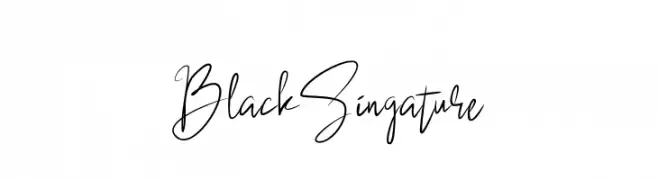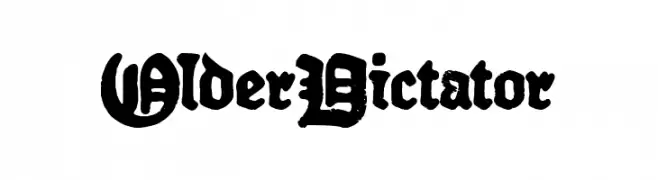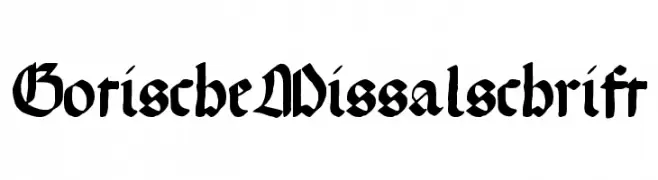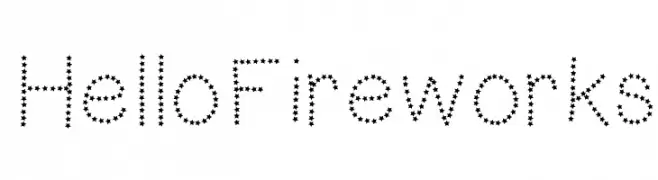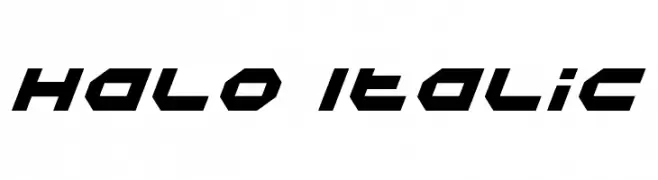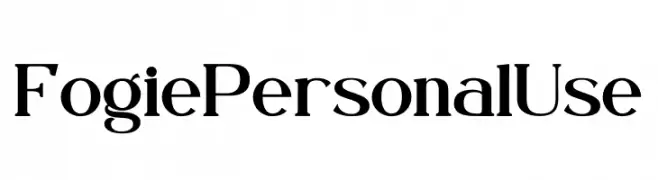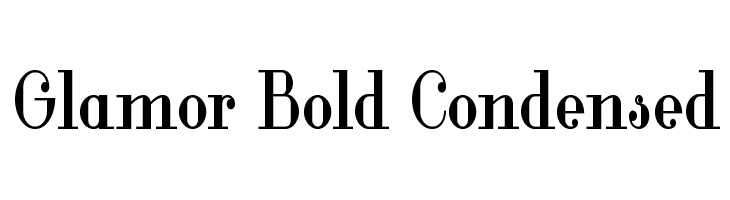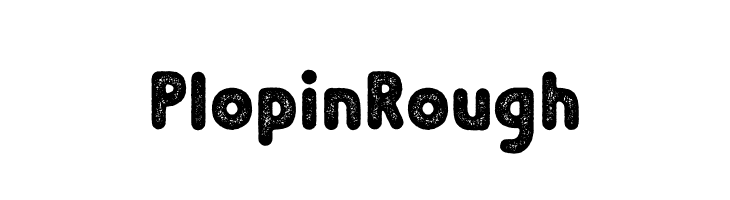
A sophisticated, cursive script font with elegant, flowing strokes.
A decorative, pixelated font with a retro, mosaic-like design.
A bold, distressed Blackletter font with intricate details and a vintage feel.
A traditional Gothic font with intricate, angular letterforms and pronounced serifs.
A decorative font made of star-shaped dots, perfect for festive and creative projects.
A modern, geometric font with clean lines and angular shapes.
A bold, condensed font with playful, rounded letterforms and whimsical curves.
A classic serif font with elegant, sharp serifs and balanced stroke contrast.
A playful, bold script font with a modern, handwritten style.